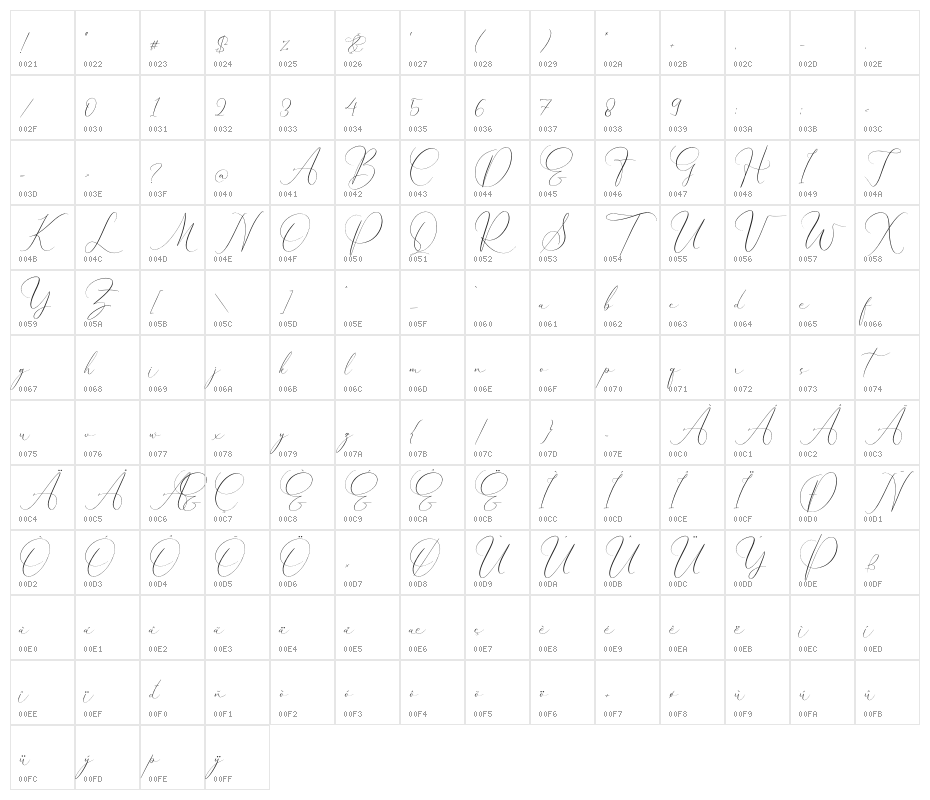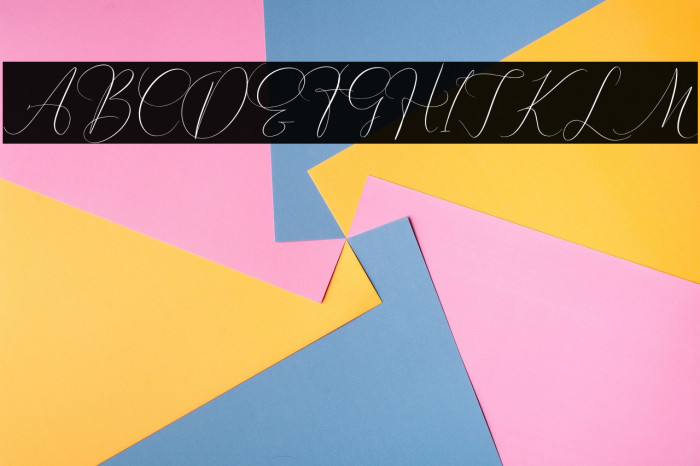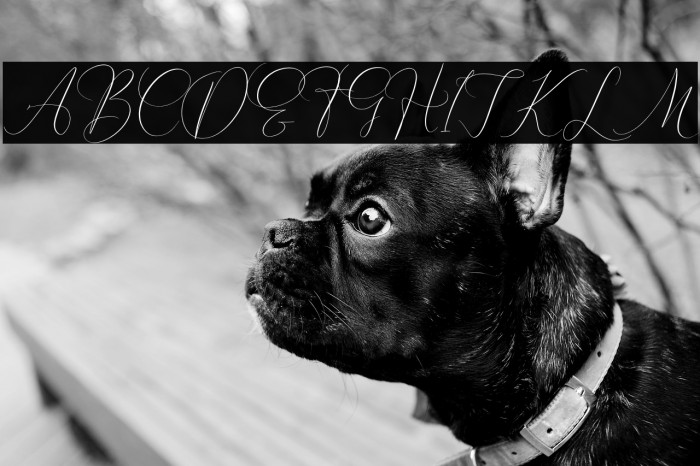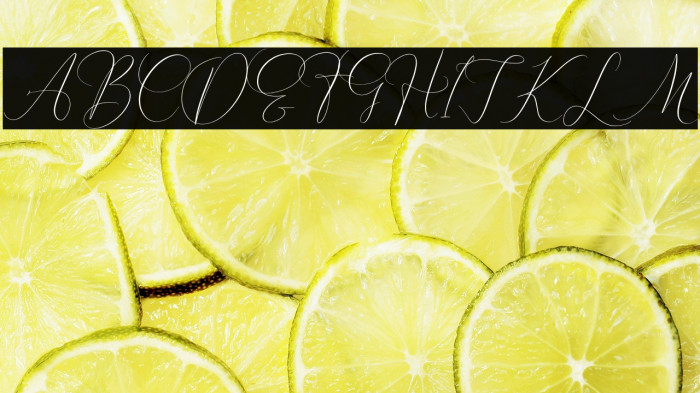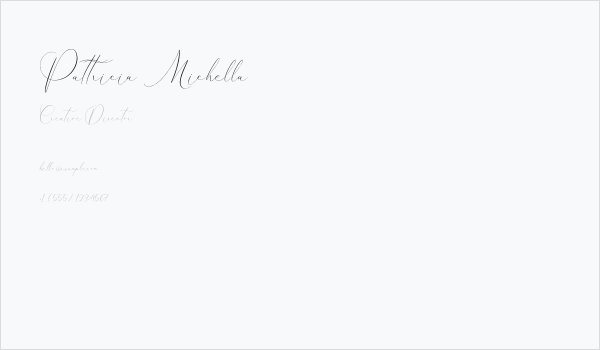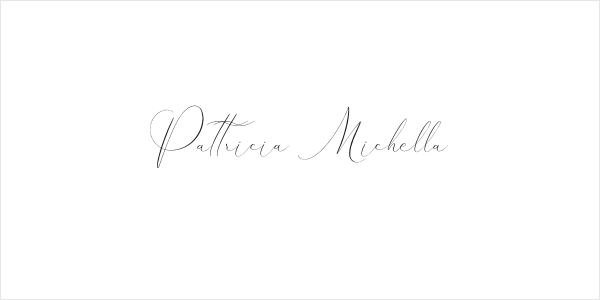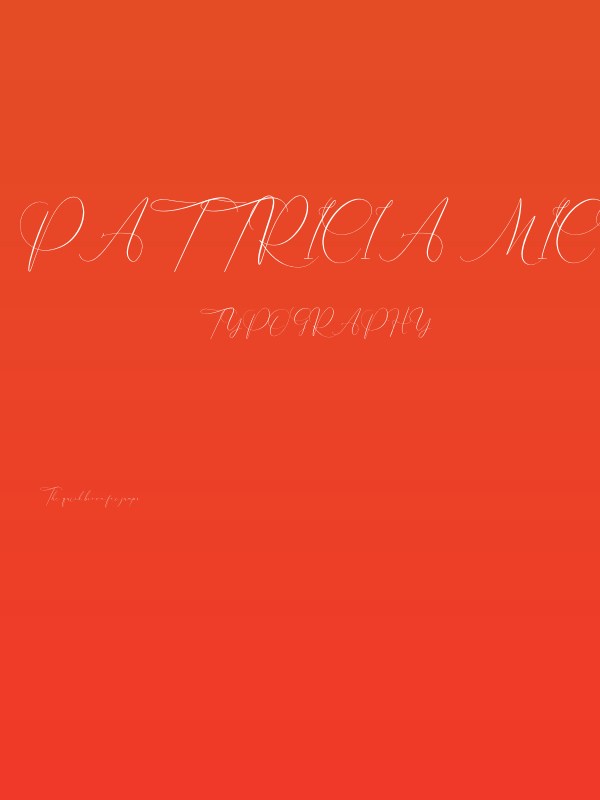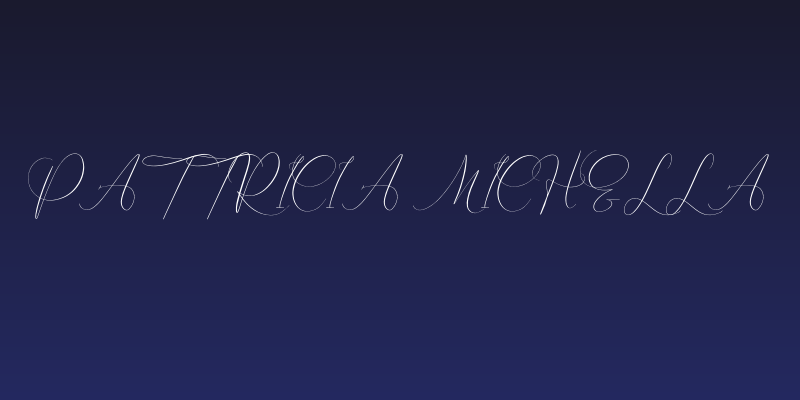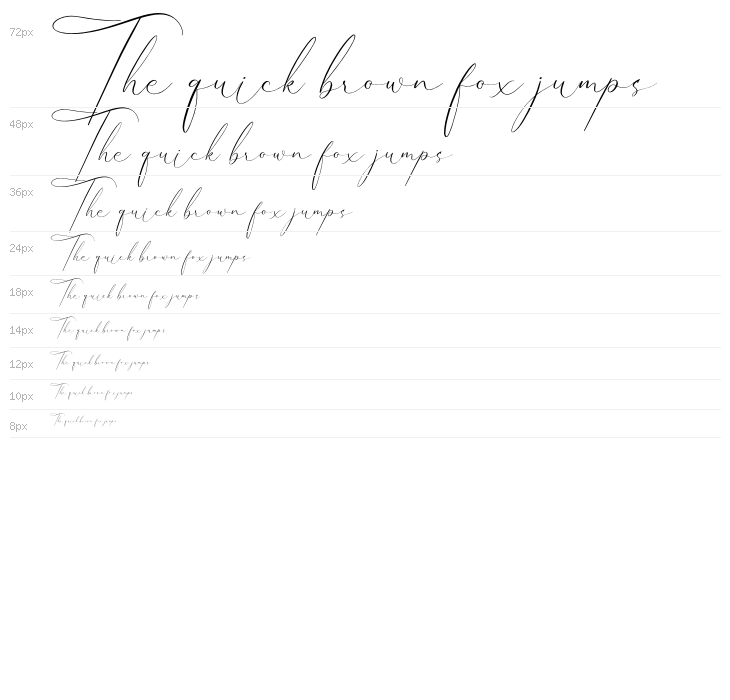
Pattricia Michella Font
Pattricia Michella Description
This elegant script font features a delicate and flowing style, characterized by its thin, graceful strokes and intricate curves. The uppercase letters exhibit a sophisticated flair, with extended loops and swashes that add a touch of luxury and refinement. The lowercase letters maintain a consistent fluidity, complementing the uppercase with their smooth, connected forms. Numbers and special characters are designed with the same attention to detail, ensuring a cohesive appearance across all elements. This font exudes a sense of elegance and sophistication, making it ideal for projects that require a touch of class and style.
| Use Case | Logos, Invitations, Stationery |
| Proposed Projects | Ideal for wedding invitations, luxury branding, elegant stationery, and high-end product packaging. |